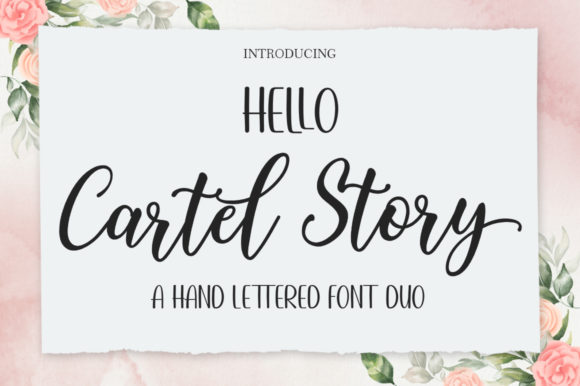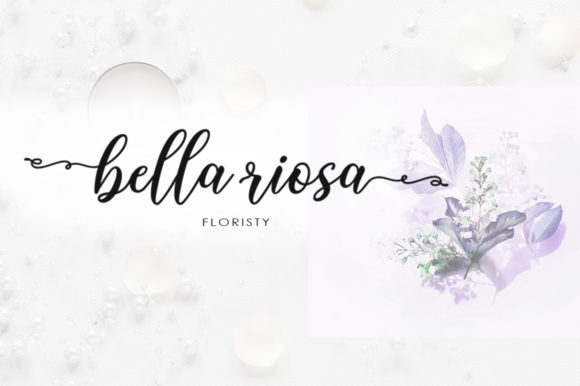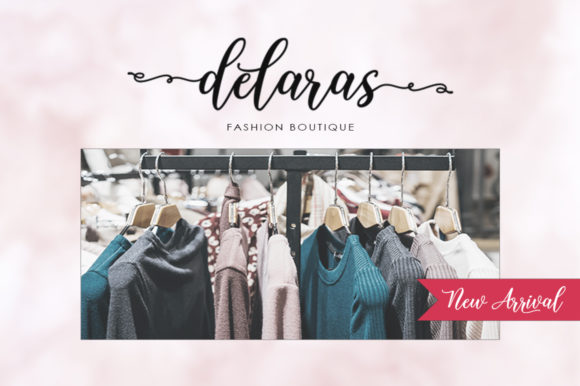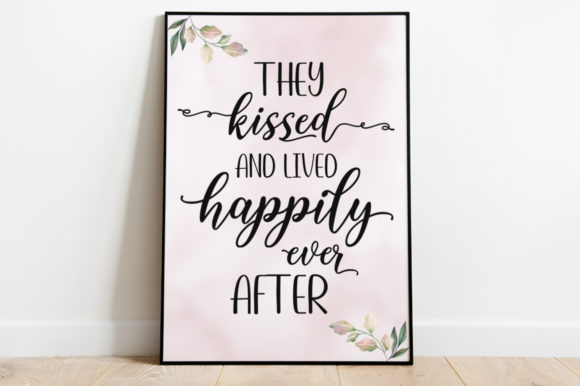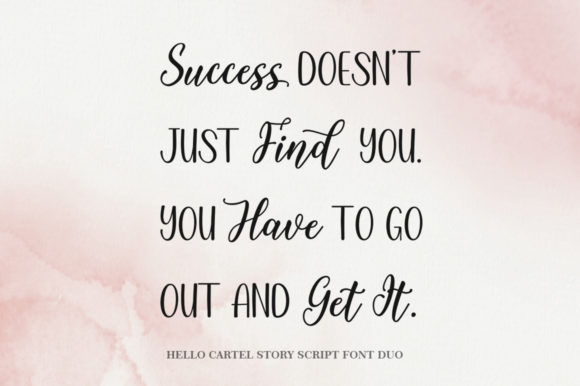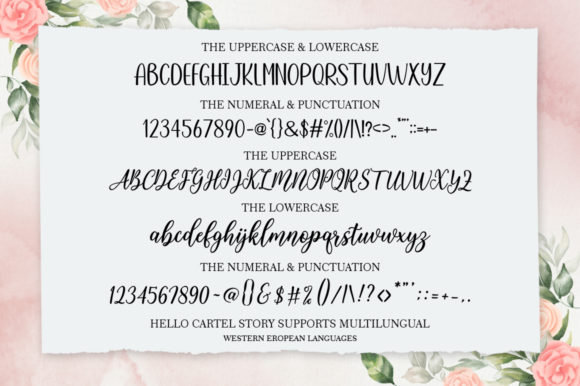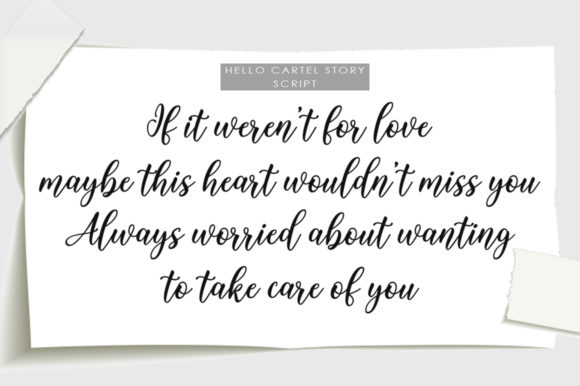
Hello Cartel Story Font
About Hello Cartel Story Font
Hello Cartel Story is a lovely and cute duo font (script and sans serif). It has a casual, yet elegant touch. It can be used for various purposes such as logos, wedding invitations, headings, t-shirts, letterhead, signage, labels, news, posters, badges and so much more.